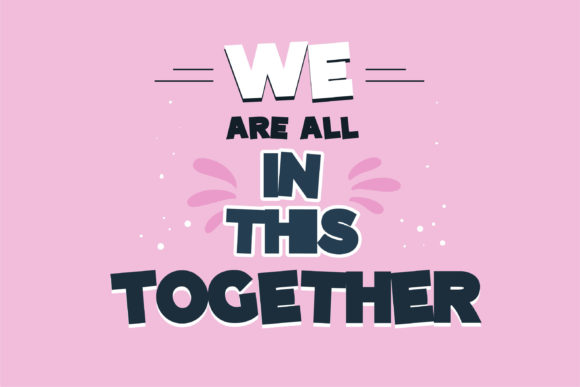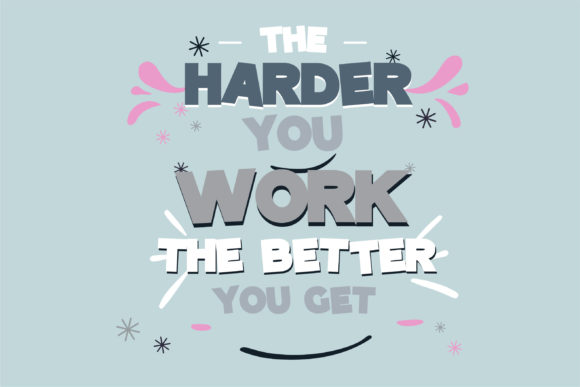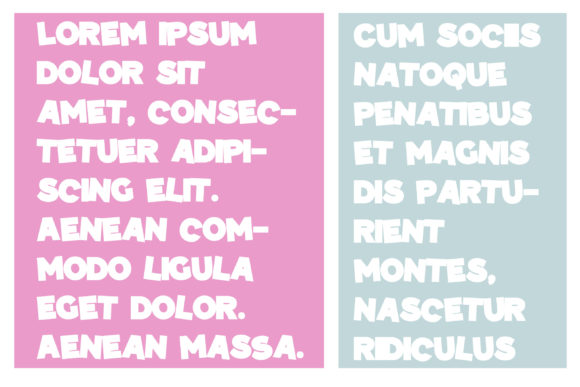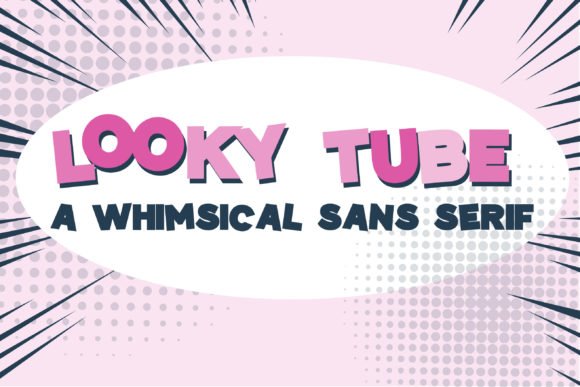
Introduction to Looky Tube Font
This blocky sans serif has toggled lettering throughout with a few ligatures.
It looks fresh, modern, and perfect for almost any crafty idea .